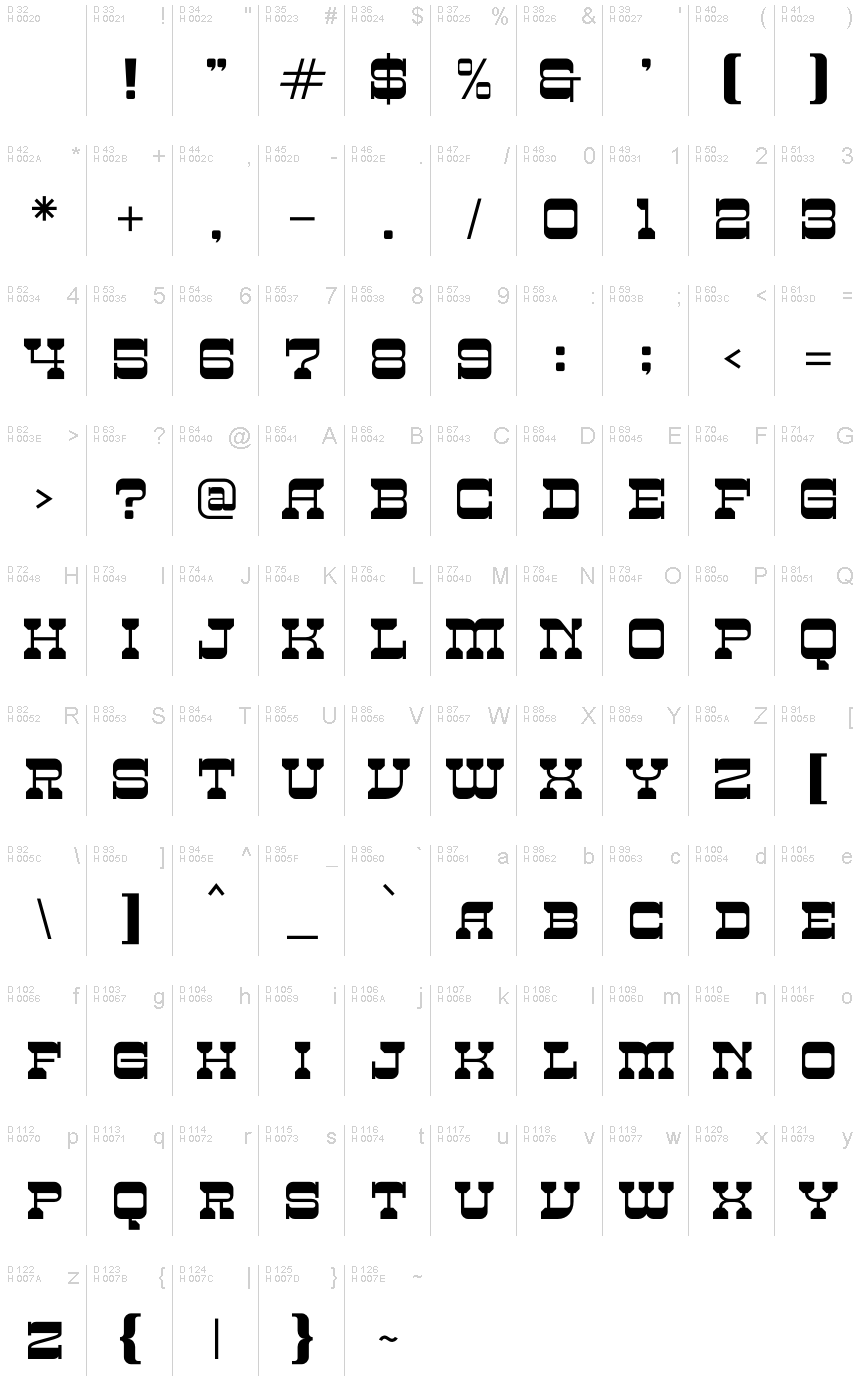
Bold and captivating, Big Rodheo is a distinctive western-style display font crafted by the talented team at Storytype Studio. This expansive typeface exudes a rugged yet refined aesthetic, with its striking letterforms and dynamic visual presence. The bold lines and angular edges evoke a sense of strength and adventure, making it a standout choice for attention-grabbing designs.
Big Rodheo's versatility shines through, seamlessly complementing a wide range of applications. From eye-catching headlines and impactful branding to dynamic editorial layouts and vintage-inspired art projects, this font's bold personality can elevate any design with its unmistakable character. Its expanded width adds a sense of grandeur, making it an excellent selection for logos, posters, and other large-scale visual communications.